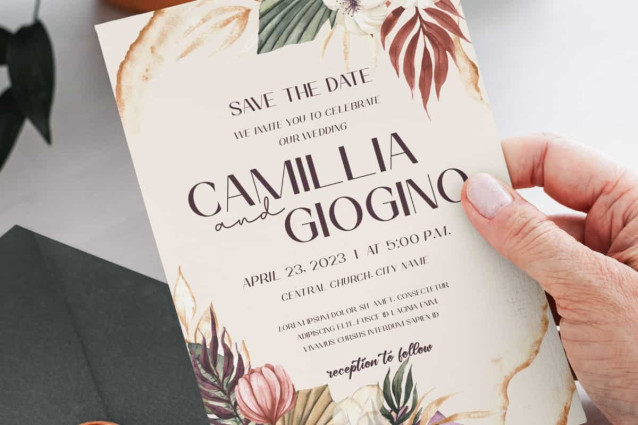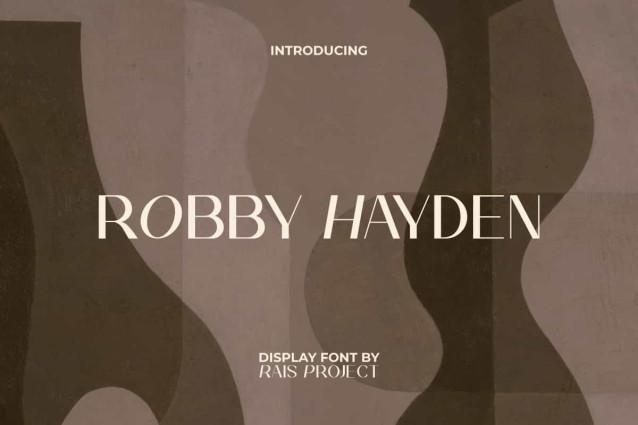
Robby Hayden Font
Robby Hayden Font is a modern luxurious sans serif font that can create exclusive, clean and classy look. A font by RaisProjec that has a combination of italic and non-italic characters so it can be paired with other type of fonts. It will look good for label, invitation, signage, stationery, brand image, cover, custom design, poster, product packaging, quotes, website, and more!
Robby Hayden Font includes a full set of Uppercase and Lowercase Letters, Numerals, Punctuation, and Symbol. This modern font will be suitable for various industries, such as event or wedding organizer, fashion, accessories and jewelry, advertisement, florist, homeware, perfume, photography, printing, publishing, real estate, etc.